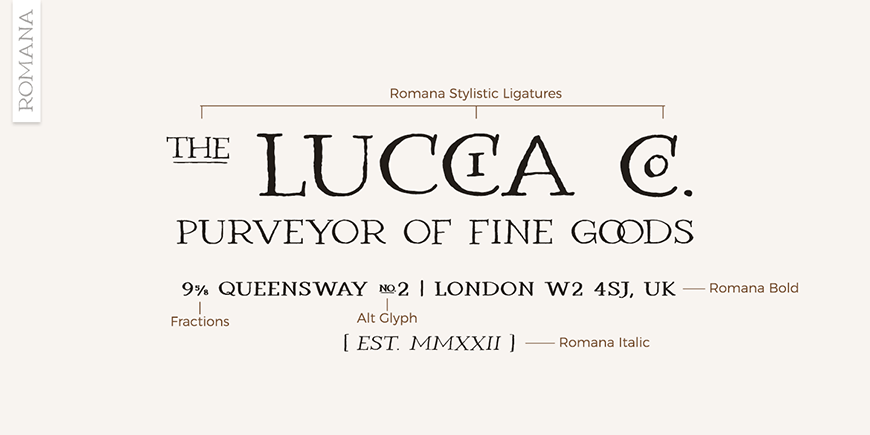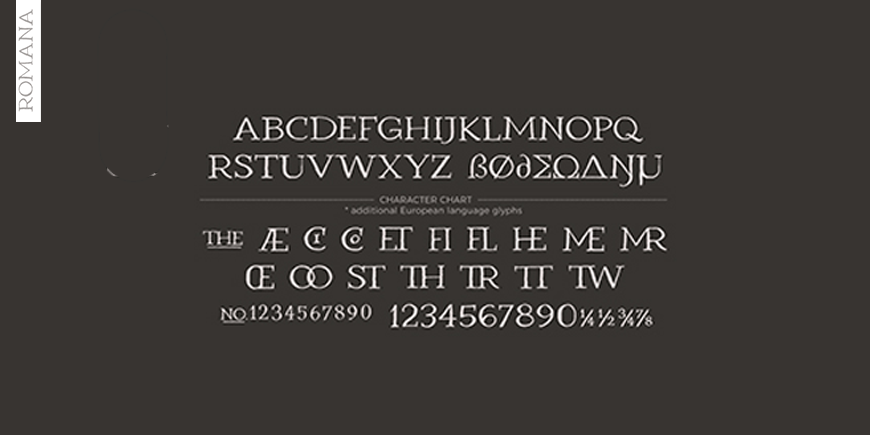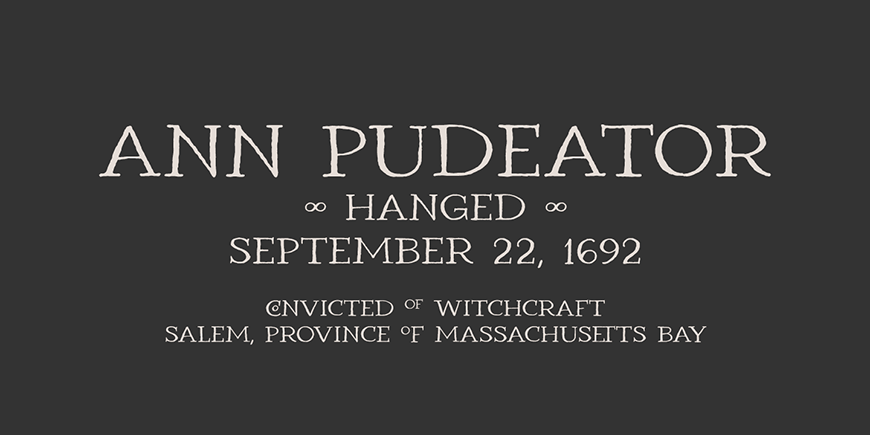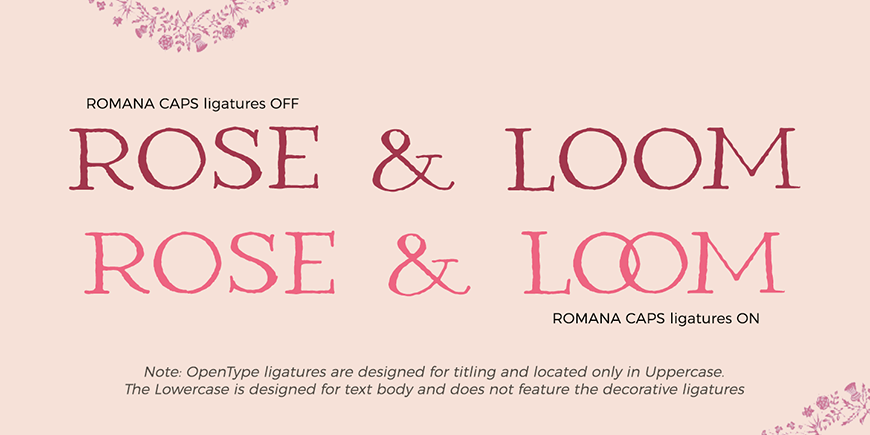
ROMANA was inspired by carved Roman inscriptions. It was hand drawn with a dip pen and ink onto paper and carefully converted into digital form. The font maintains a handcrafted feel with irregularities and quirks including eye catching ligatures & bonus…